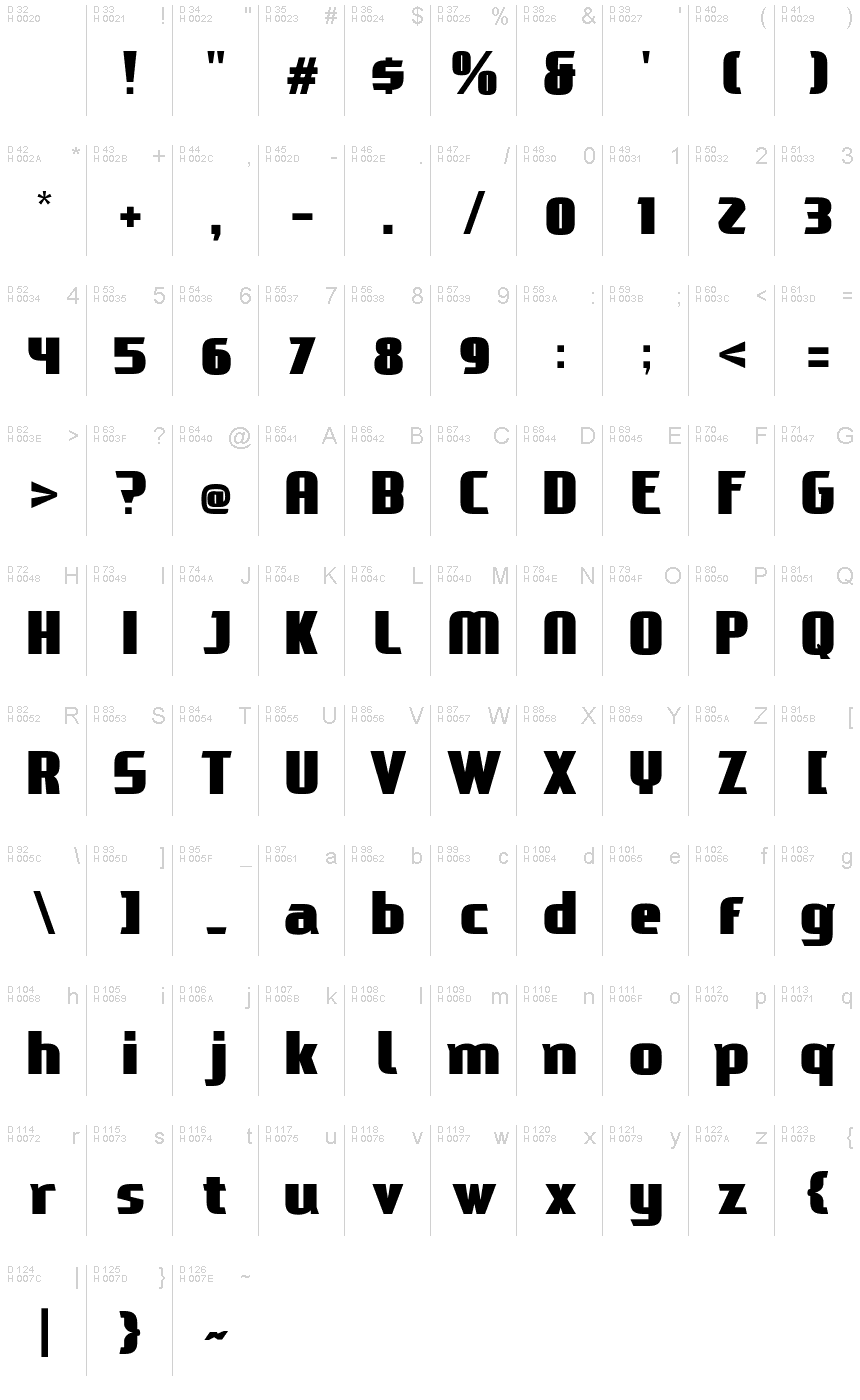
Huxley Max ExtraBlack
Embrace the boldness of Huxley Max ExtraBlack, a font that commands attention. Crafted by TypeClassHeroes, this sans serif heavyweight is a standout member of the Huxley Max family.
Its assertive lines and impactful presence make it a perfect choice for projects requiring a strong visual statement. Ideal for headlines, branding, and advertising campaigns, Huxley Max ExtraBlack promises to imbue your creative endeavors with unparalleled confidence and modern flair.
Experience its versatility in bringing clarity and distinction to any design space.